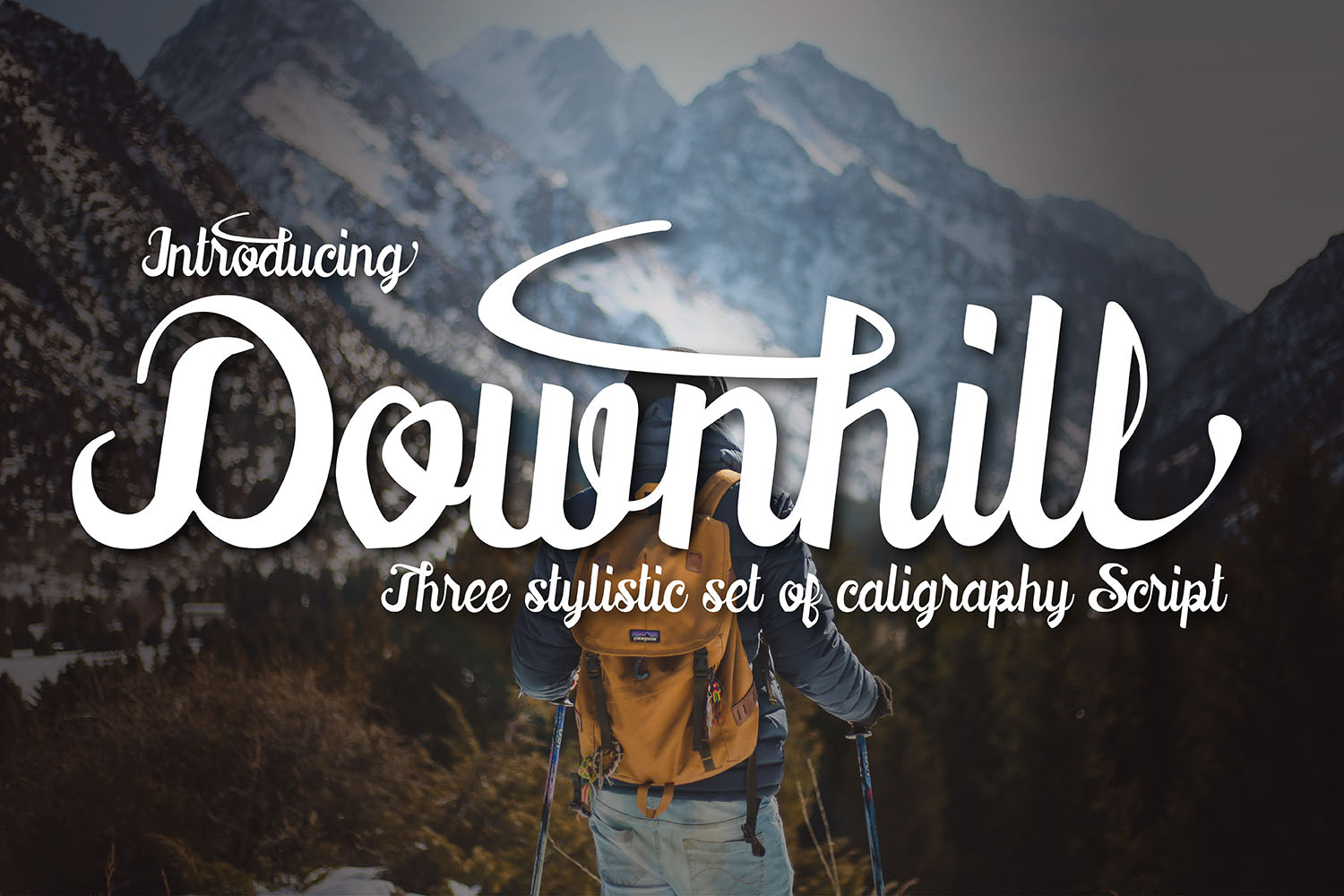
Downhill Font: Modern Painterly Calligraphy for Web Design
Using Downhill for High-Impact Website Hero Sections
When selecting typography for digital interfaces, Downhill stands out as a stunning painterly calligraphy font that brings immediate visual interest to website hero sections. As web designers, we constantly search for typefaces that balance artistic expression with functional clarity, and this specific script handwritten style achieves that equilibrium perfectly. The crisp nature of the letterforms ensures that even at large display sizes on high-resolution monitors, the edges remain sharp and defined rather than bleeding into pixelated messes. This modern sensibility makes it an ideal candidate for above-the-fold content where you have mere seconds to capture user attention and communicate brand value.
In practical UI application, Downhill functions best as a primary headline typeface rather than body copy. Its intricate details and expressive strokes are designed to be consumed in short bursts, guiding the user’s eye toward key conversion points. When implementing this font in a hero banner, consider using ample negative space around the text to allow the painterly elements to breathe. Overcrowding this typeface against busy background imagery can reduce legibility, so pairing it with solid color blocks or subtle gradients often yields the highest readability scores. For landing pages focused on creative services, lifestyle products, or premium coaching, this font establishes an immediate tone of sophistication and bespoke craftsmanship that generic sans serif fonts simply cannot replicate.
Downhill for Logotype and Digital Brand Identity Systems
Beyond temporary headlines, Downhill offers exceptional utility for logotype and comprehensive digital brand identity systems due to its highly brandable appeal. Creating a wordmark for a client requires a typeface that feels proprietary and distinct, and the unique character shapes within this font family provide a solid foundation for custom logo design. Because it was designed in a modern way, it avoids the overly ornate flourishes that can make traditional script fonts look dated or illegible when scaled down for mobile app icons and browser favicons. This versatility allows designers to maintain a consistent visual thread from the main website header all the way to social media profile pictures and email signatures.
For digital product creators building brand kits, Downhill serves as the anchor display font that defines the emotional resonance of the brand. It pairs exceptionally well with minimalist geometric sans serifs for supporting text, creating a hierarchy that feels both curated and accessible. When designing for online stores or boutique e-commerce platforms, using this typeface in the logo helps differentiate the brand from competitors relying on standard system fonts. However, it is crucial to test the logotype across various breakpoints; while the full name may look stunning on desktop, you might need to utilize an alternate lockup or simplified version for mobile navigation bars to ensure the painterly details do not get lost at small sizes.
Optimizing Downhill Typography for Mobile Responsiveness
Responsive web design presents unique challenges for decorative Fonts, yet Downhill remains sensible for displays and headlines even on constrained mobile screens. The key to successful implementation lies in fluid typography scaling and careful weight management. Unlike rigid serif fonts that can become spindly on retina displays, the painterly construction of this script handwritten typeface retains its ink-like texture when resized correctly. Designers should implement CSS clamp() functions to ensure the font size transitions smoothly between viewport widths, preventing the text from becoming overwhelmingly large on tablets or comically small on smartphones.
Readability on touch devices also depends heavily on contrast and spacing. When using Downhill for mobile headers, increase line-height slightly more than you would for standard body text to prevent ascenders and descenders from colliding. Dark mode implementations require particular attention; light painterly strokes on dark backgrounds can sometimes appear thicker due to optical irradiation, so testing on actual devices is mandatory. If the font includes multiple weights or stylistic alternates, utilize the lighter weights for dark backgrounds and heavier weights for light backgrounds to maintain consistent visual mass. This level of typographic tuning ensures that the artistic integrity of the font supports, rather than hinders, the mobile user experience and conversion flow.
Pairing Downhill with Sans Serif Fonts for Editorial Layouts
Achieving professional typographic harmony involves strategically combining Downhill with complementary sans serif fonts to create readable editorial layouts. While this painterly calligraphy excels at grabbing attention, it relies on neutral partners to deliver long-form content effectively. For blog posts, course sales pages, or detailed product descriptions, pair Downhill headlines with clean, humanist sans serifs like Inter, DM Sans, or Plus Jakarta Sans. This combination leverages the principle of contrast: the organic, hand-crafted feel of the display font highlights the structured, rational nature of the body copy, making the entire page feel intentionally designed rather than chaotic.
In content-heavy sections such as testimonials or feature breakdowns, use Downhill sparingly for pull quotes or emphasis phrases to break up scanning patterns. This technique guides readers through the page rhythmically, reducing cognitive load and keeping engagement high. Avoid pairing this script with other decorative or serif display fonts, as competing visual personalities will confuse the hierarchy and dilute the brand message. Instead, let Downhill be the singular voice of expression while your secondary typeface handles the heavy lifting of information architecture. This disciplined approach to font pairing is what separates amateur designs from premium digital experiences that convert visitors into customers.